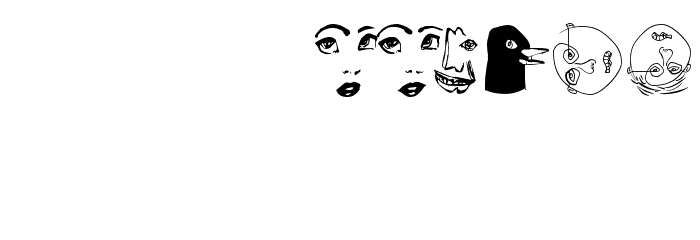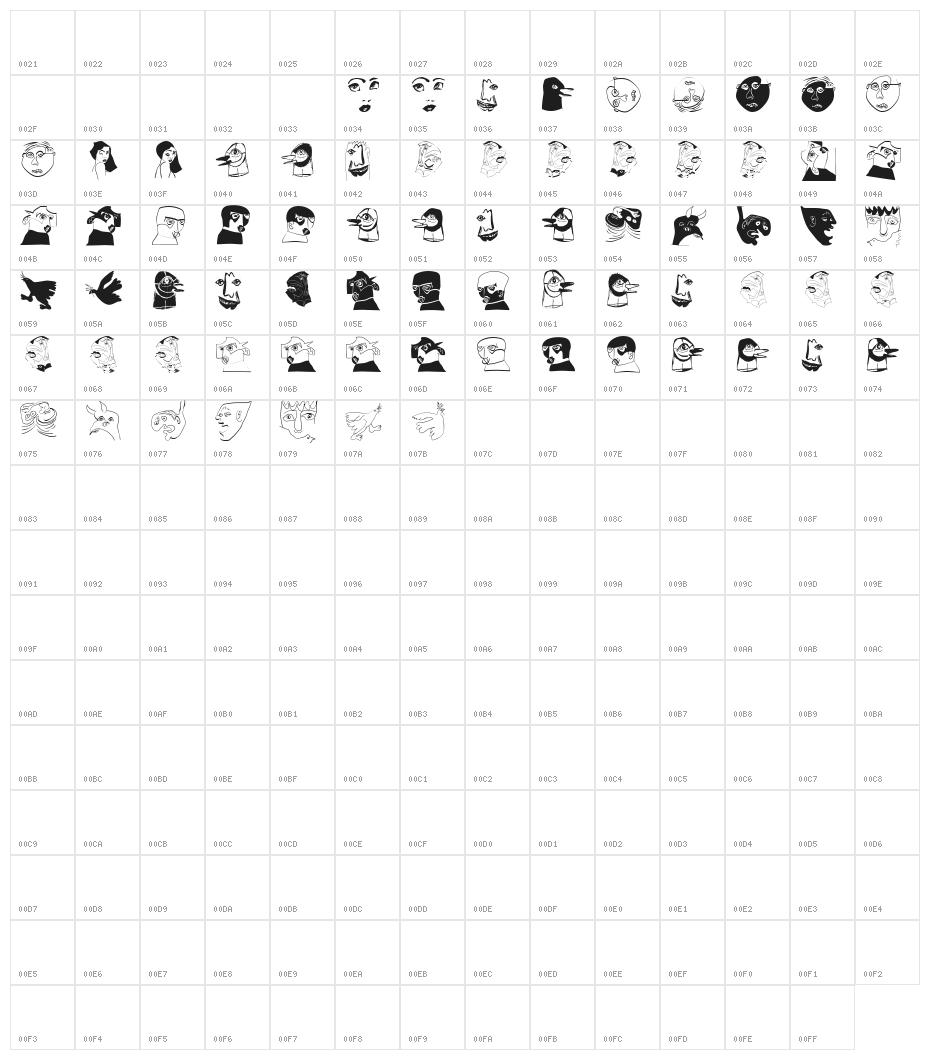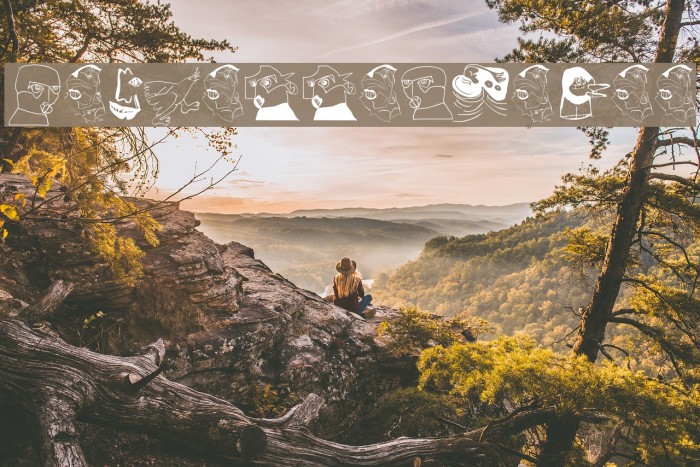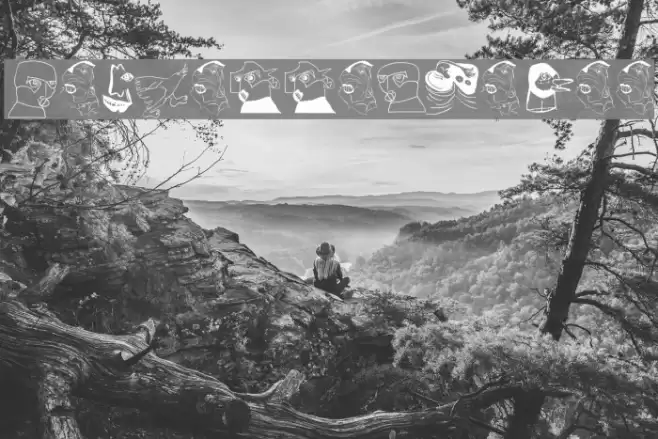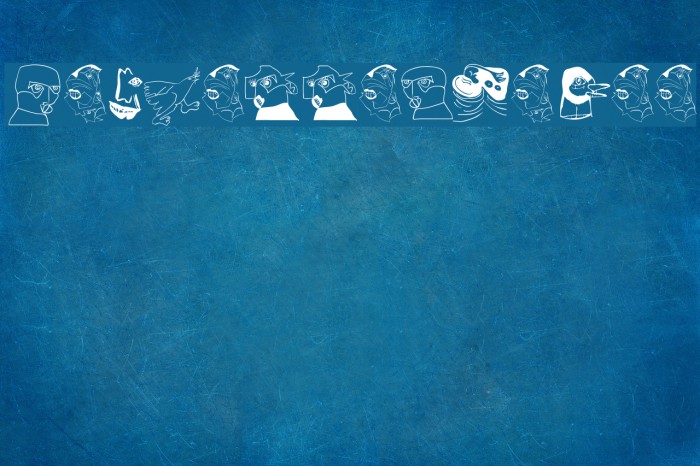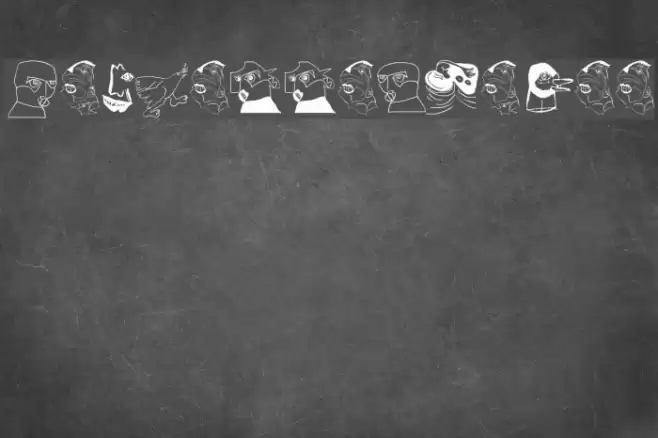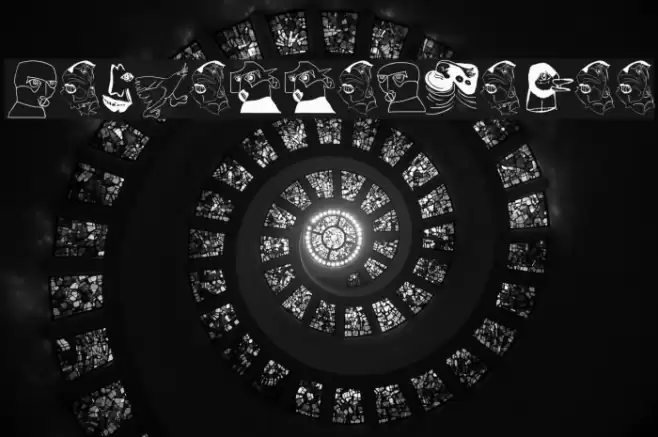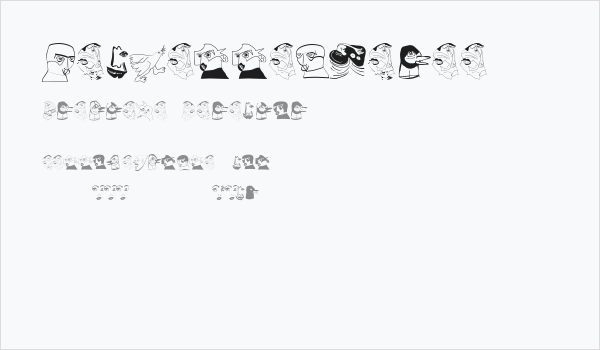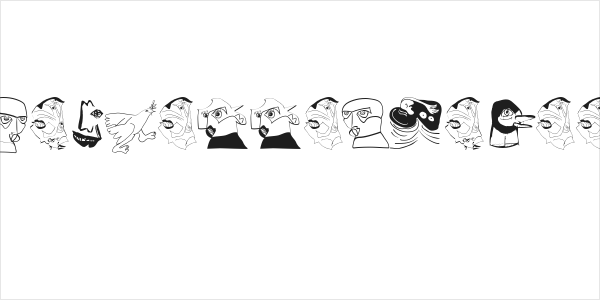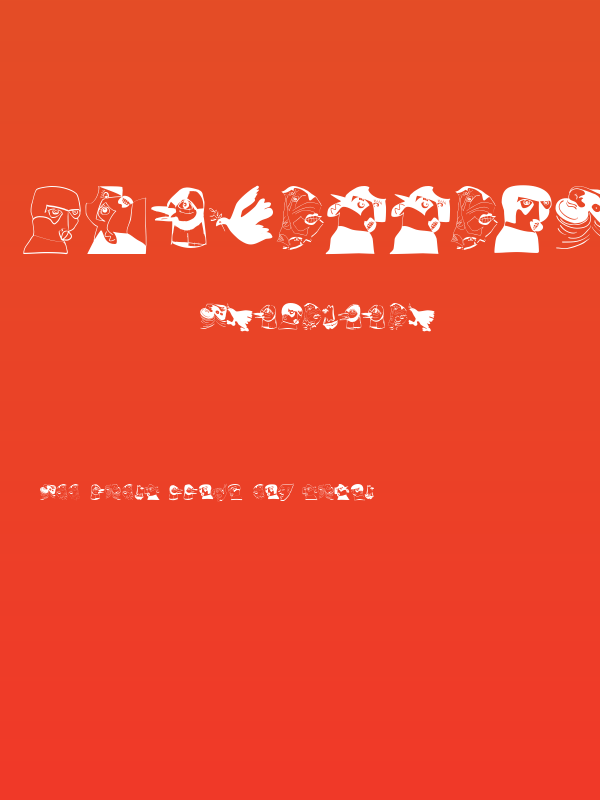
MiszellenThree Font
MiszellenThree Description
This is a highly creative and artistic font that features a series of abstract and whimsical character illustrations instead of traditional alphanumeric characters. Each symbol is a unique piece of art, resembling abstract faces and figures with exaggerated features and playful expressions. The style is reminiscent of modern art, with bold lines and a mix of filled and outlined shapes. The characters are not uniform in size or style, adding to the eclectic and dynamic feel of the font. This font is not suitable for typical text but serves as a decorative element for artistic projects.
| Use Case | Artistic designs, Decorative elements |
| Proposed Projects | Ideal for creative projects such as art posters, album covers, or any design requiring a unique and artistic touch. |